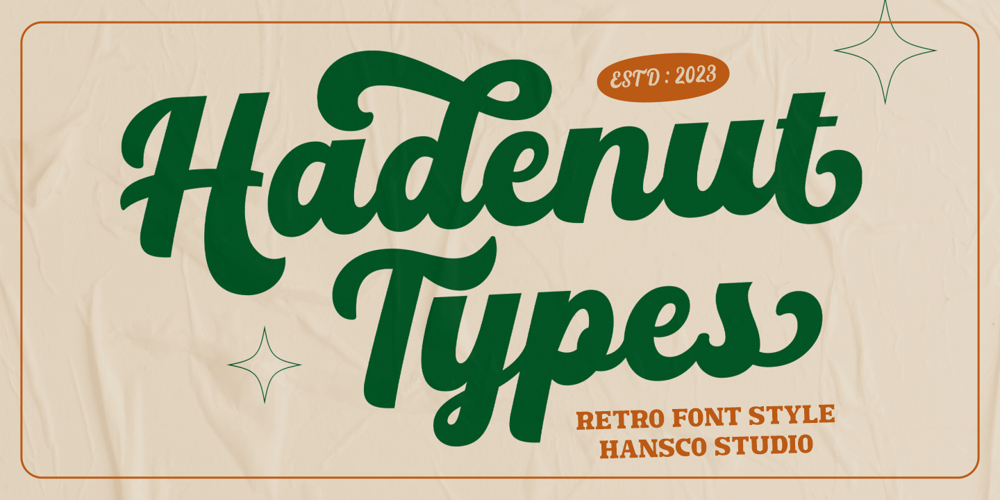
Hadenut
Hadenut font
Hadenut Font Family was designed by Burhan Afif and published by HansCo. Hadenut contains 1 styles and family package options. Hadenut Font is a lettering retro vintage font. You will get alternate characters such as swash on some characters. Equipped with all complete characters ranging from uppercase letters, lowercase letters, numbers, punctuation marks and multi-lingual support, this font is ready to be used in any project. Very suitable for logotype, Stickers, Packaging design, Cricut Project, Headlines, Brand identity, T shirt or Apparel industry, Posters, Magazines, Books, YouTube, Instagram, Websites, Canva, Corjl or any of your creative design projects. Use this Hadenut font to add that special modern retro touch to any design idea you can think of!Enjoy!